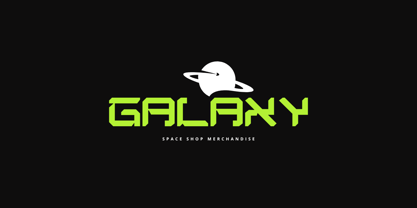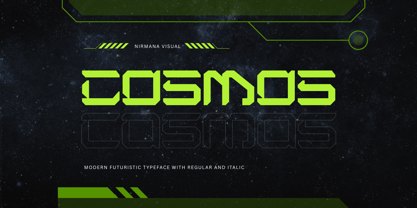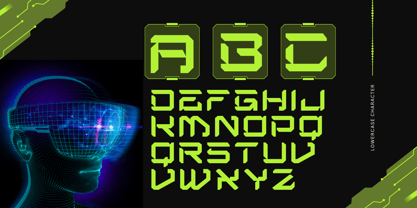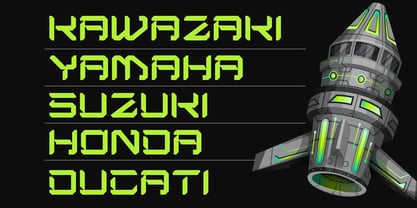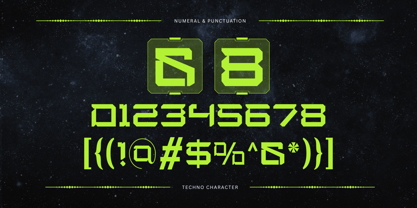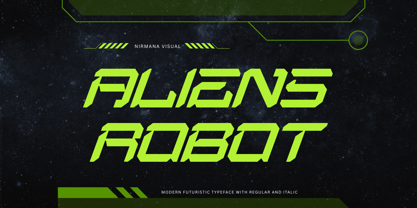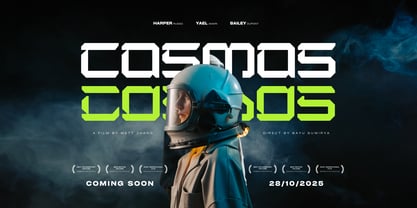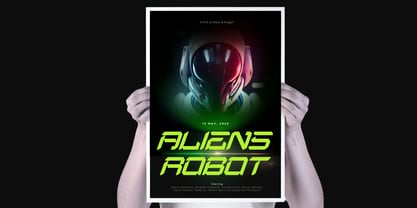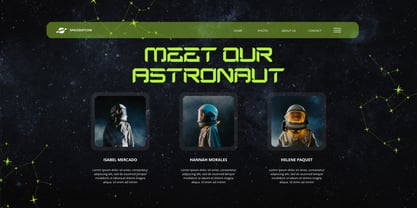
Aliensrobot Cyberpunk
The Aliensrobot Cyberpunk Font Family was designed by Sigit Dwipa and published by Nirmana Visual. Aliensrobot Cyberpunk contains 2 styles and family package options. More about this family
Aliens Robot is a cutting-edge techno typeface inspired by futuristic worlds, robotics, and outer space. With sleek lines and a bold, modern structure, it's perfect for sci-fi movie posters, tech-themed logos, game titles, and high-impact visuals. Its unique character design evokes the essence of space-age technology, making it an ideal choice for digital creators seeking a powerful, modern aesthetic.